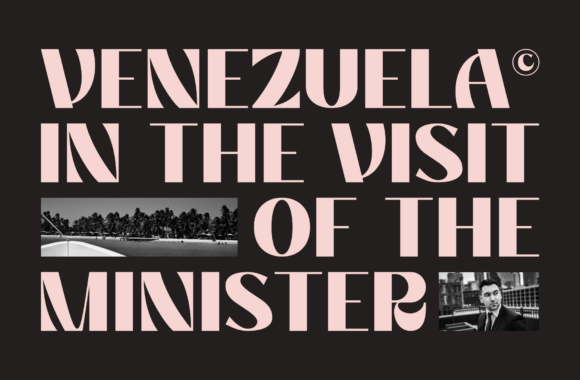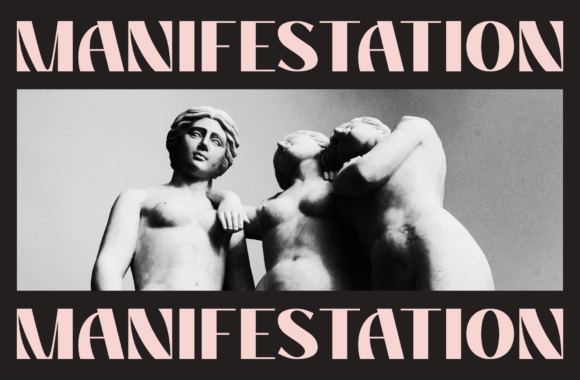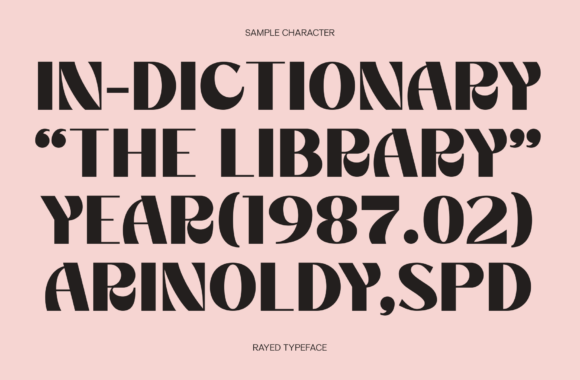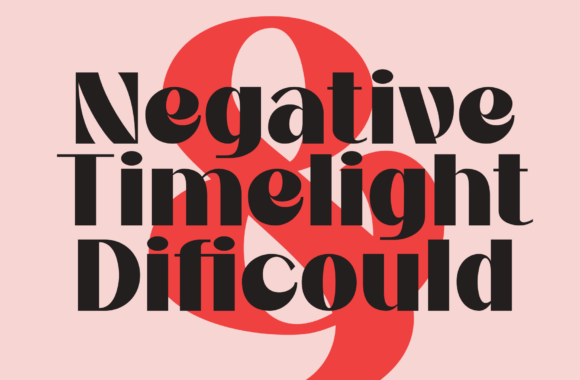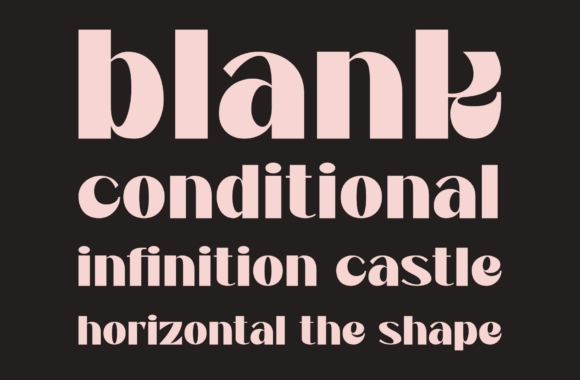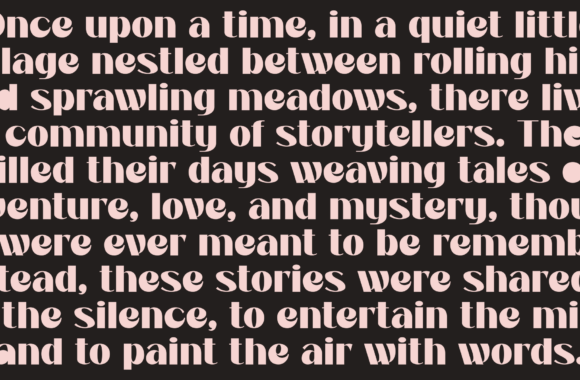
Introduction to Rayed Font
Remember the thrill of discovering a hidden gem in the world of design? The moment when you stumble upon a font that perfectly captures the essence of your creative vision, elevating your project to new heights? For designers, this experience is a treasure trove of inspiration, and it’s exactly what the Rayed Font offers.
With its bold display typeface and sans-serif elements, the Rayed Font is a game-changer for creative projects. Its striking contrast and unique design make it a high-quality design resource that’s perfect for branding, headlines, and any other design purpose that requires a touch of sophistication.
Key Features of Rayed Font
- High-quality vector font with a unique rayed design, perfect for creative projects.
- Transparent background, allowing for seamless integration into any design.
- Designed to be versatile and adaptable, suitable for various design applications, including logos, branding, and digital art.
- Supports a wide range of languages, making it a valuable design resource for global projects.
Honest Review: Rayed Font
I recently stumbled upon the Rayed Font and I must say, it’s been a game-changer for my creative projects. As a designer, I’m always on the lookout for high-quality fonts that can elevate my designs and make them stand out.
The Rayed Font delivers just that. It’s a versatile font that can be used in a variety of creative projects, from logos and branding to digital products and marketing materials. What works well is its modern and sleek design, which is perfect for creating a professional and sophisticated look.
Here are some of the things I like about the Rayed Font:
- ✨ High-quality design that’s perfect for a variety of creative projects.
- ✨ Transparent background, making it easy to use in design applications.
- ⚠️ Limited font styles and weights available, which may not be suitable for all design projects.
- ⚠️ Not ideal for use in body text, due to its modern and sleek design.
Overall, I’m really impressed with the Rayed Font and would highly recommend it to fellow designers looking for a high-quality font for their creative projects.
Tips for Getting the Most Out of Rayed Font
For the best results, use Rayed Font in a high-quality design project. Experiment with different font sizes, colors, and styles to create unique and creative designs. Use the font in conjunction with other design resources, such as images and graphics, to add depth and interest to your project.
Rayed Font is ideal for creative projects, such as logos, posters, and social media graphics. It’s also great for presentations, documents, and websites. The font’s unique design makes it perfect for adding a touch of elegance and sophistication to your design.